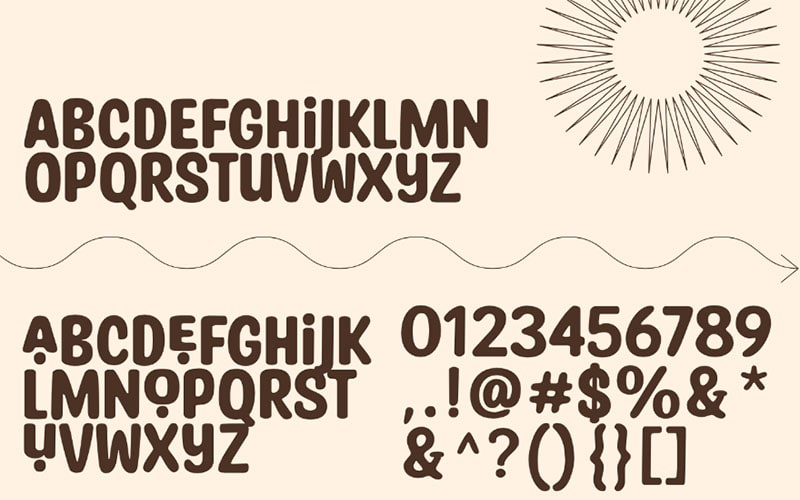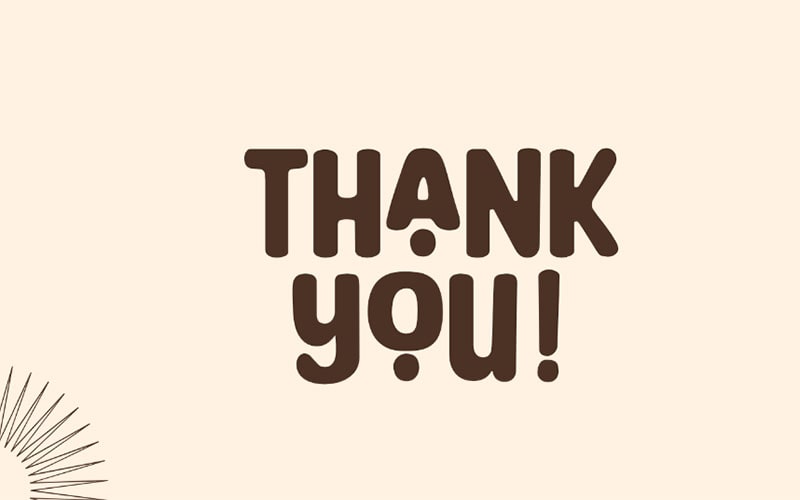
Tawny Eyes Font is a captivating and versatile typeface that brings elegance and sophistication to any design project. It was designed by a renowned typeface designer Niskala Huruf.
known for their ability to blend classic elegance with contemporary design. The designer’s attention to detail and commitment to creating beautiful, functional typefaces is evident in the refined curves and balanced proportions.
It includes a variety of styles Tawny Eyes Regular, Tawny Eyes Bold, Tawny Eyes Italic, and Tawny Eyes Bold Italic which cater to different design needs.
Each typeface maintains the core characteristics of the font while offering options for different levels of emphasis and stylistic variation. Introduces a dynamic slant, perfect for emphasis and stylistic differentiation.
This typeface is a product of thoughtful craftsmanship, aimed at providing designers with a tool that combines aesthetic appeal with versatility.
Tawny Eyes Font offers an exquisite blend of elegance and versatility, making it an exceptional choice for designers seeking to elevate their projects.